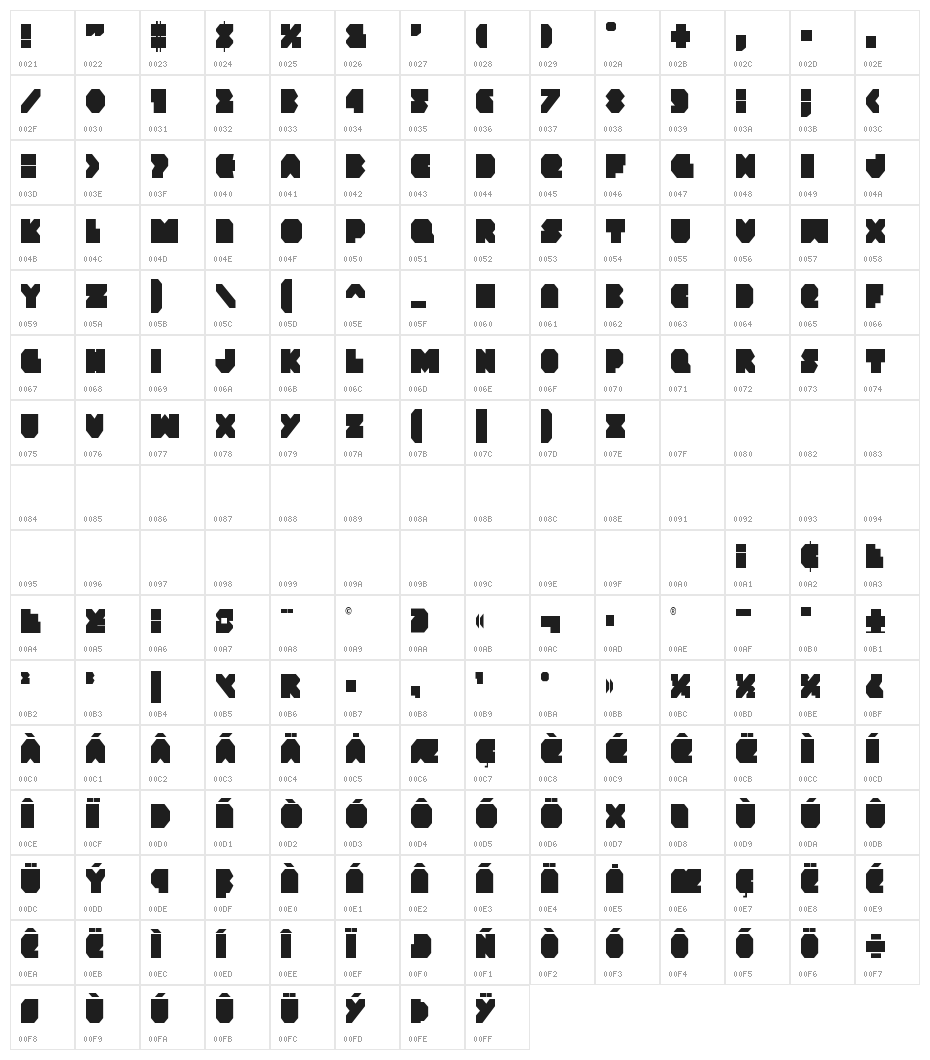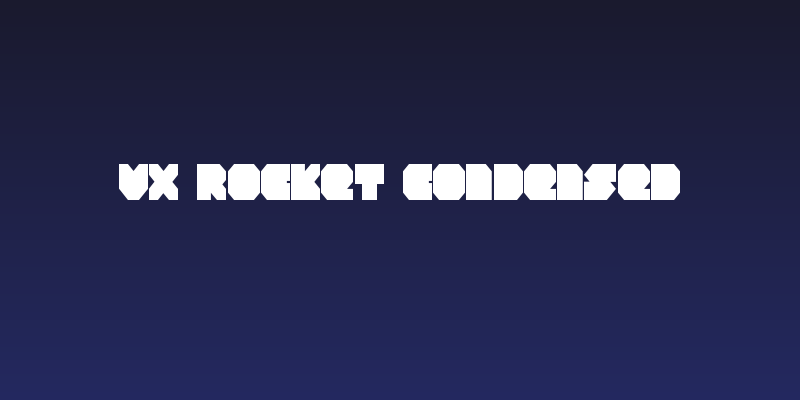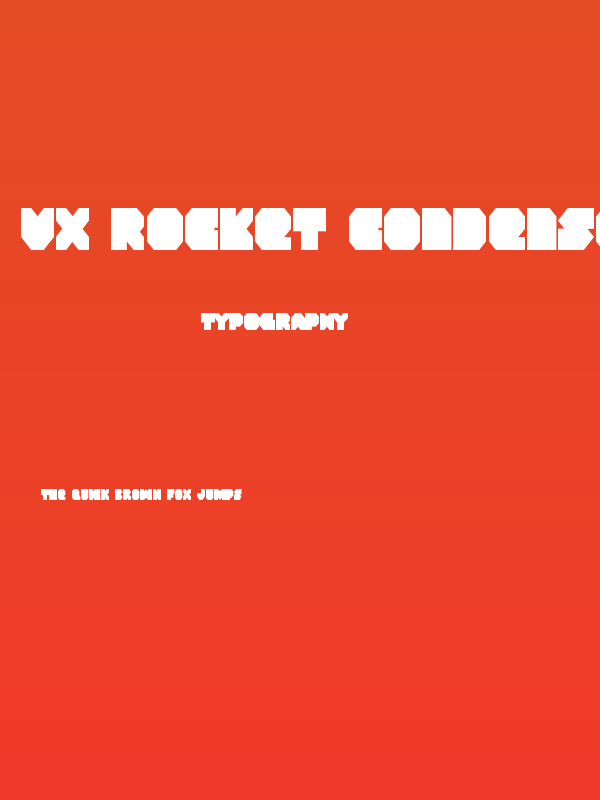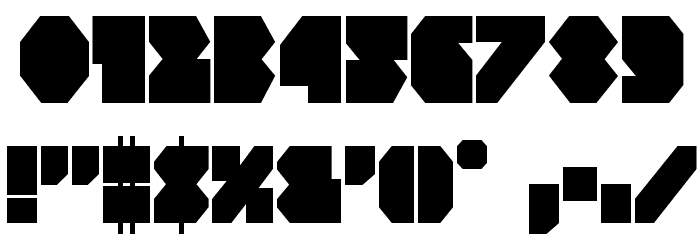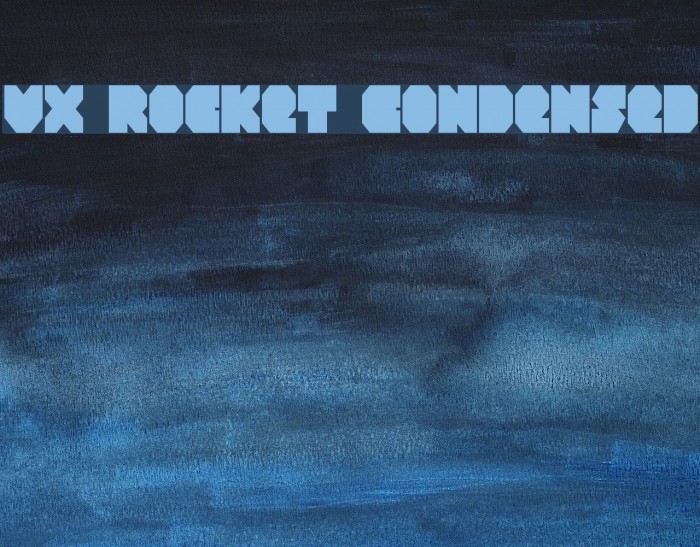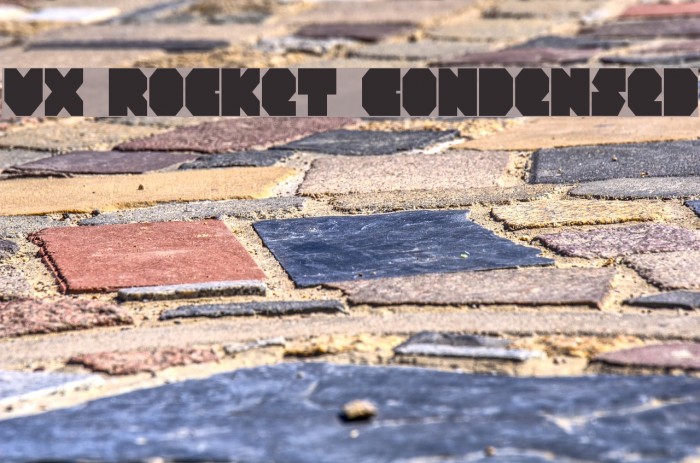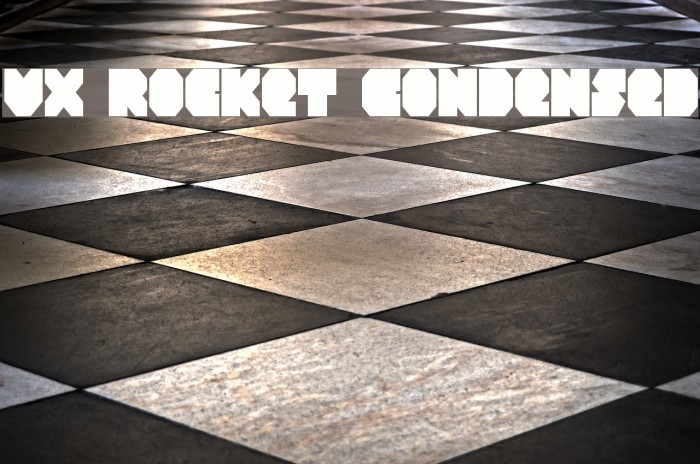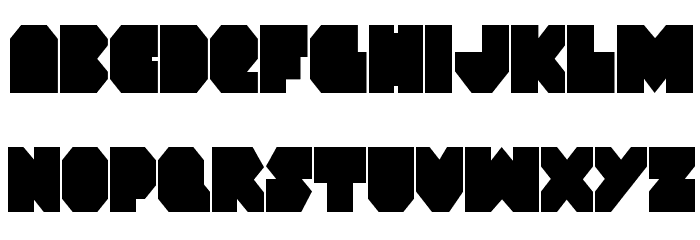
VX Rocket Condensed Font
VX Rocket Condensed Description
This font features a bold, geometric design with a distinctly futuristic and industrial feel. The characters are constructed with sharp angles and straight lines, giving them a blocky appearance. The condensed nature of the font allows for efficient use of space, making it ideal for headlines and impactful text. The uppercase and lowercase letters maintain a consistent style, with the lowercase mirroring the uppercase in form. Numbers and special characters are designed to match the overall aesthetic, ensuring uniformity across all text elements. The font's unique style makes it stand out, perfect for projects that require a modern and edgy look.
| Proposed Projects | Ideal for sci-fi themed designs, posters, video game graphics, and branding that requires a modern and industrial look. |